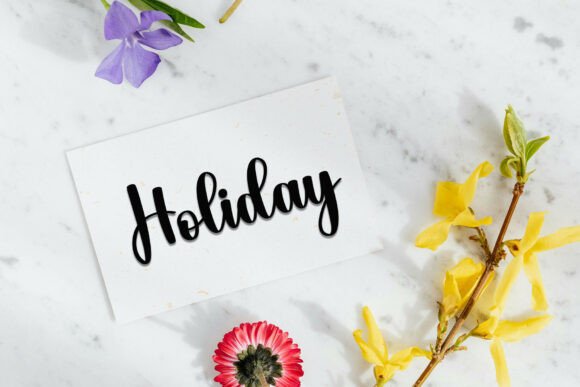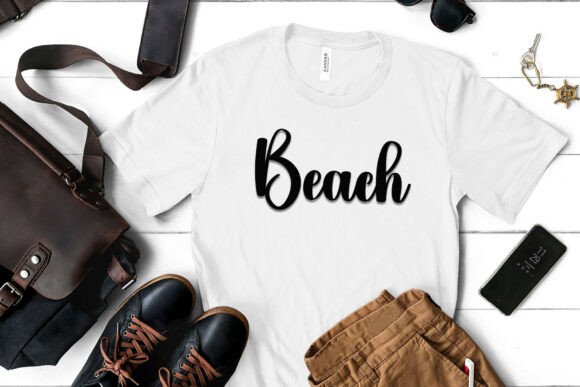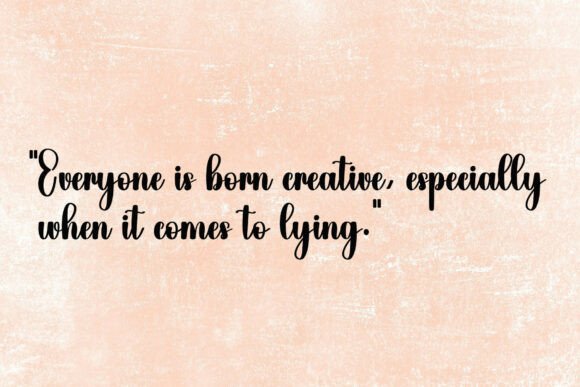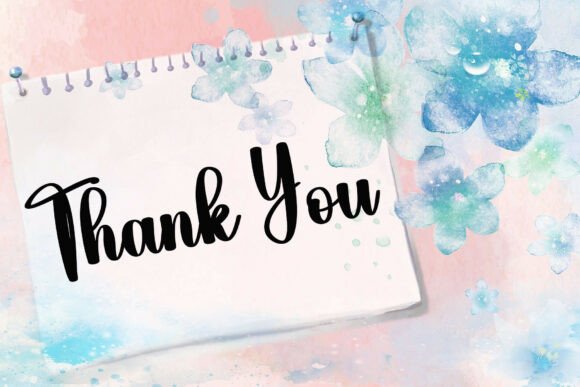
Introduction to Single Beauty Font
Have you ever been working on a creative project, and the right font just eludes you? The words, the emotions, the entire vibe of your design seems to be missing that special something. That’s exactly what happened to me when I stumbled upon the Single Beauty Font. Its cute and casual handwritten style immediately caught my eye, and I knew I had to learn more.
As designers, we’re always on the lookout for that perfect design resource to elevate our work. And trust me, Single Beauty Font is a game-changer. Whether you’re looking for a free download to add a personal touch to your Instagram posts or a high-quality font to use in your calligraphy scripts, this font is sure to deliver.
Key Features of Single Beauty Font
- High-quality design: Single Beauty Font is a premium font designed to enhance any creative project with its elegant and sophisticated look.
- Unique characteristics: Single Beauty Font features a unique blend of modern and vintage elements, making it a standout design choice for any creative project.
- Perfect for design projects: With its high-quality design and transparent background, Single Beauty Font is ideal for use in logos, branding, and other creative projects where a sophisticated look is desired.
Honest Review: Single Beauty Font
I recently stumbled upon the Single Beauty Font, and I must say it’s a great addition to my design arsenal. The font itself is stunning, with elegant lines and a minimalist aesthetic that makes it perfect for a wide range of creative projects.
One of the standout features of this font is its transparent background, which makes it incredibly easy to customize and manipulate. This is especially useful when working on high-quality designs, as it allows for seamless integration with other design elements.
- Elegant and minimalist design
- Perfect for a wide range of creative projects
- May not be suitable for bold or dramatic designs
- Some users may find the font too minimalist
Overall, I’m really impressed with the Single Beauty Font. It’s a high-quality design resource that’s perfect for anyone looking to add a touch of elegance to their creative project. And the best part? It’s available for free download, making it an excellent addition to any designer’s toolkit.
Tips for Getting the Most Out of the Single Beauty Font
To get the most out of the Single Beauty Font, use it in combination with other design elements to create a cohesive and visually appealing design. Experiment with different font sizes, colors, and styles to find the perfect look for your creative project.
The Single Beauty Font is a versatile design resource that can be used in a variety of creative projects, including invitations, posters, and social media graphics. Its elegant and sophisticated design makes it perfect for use in weddings, parties, and other special events.